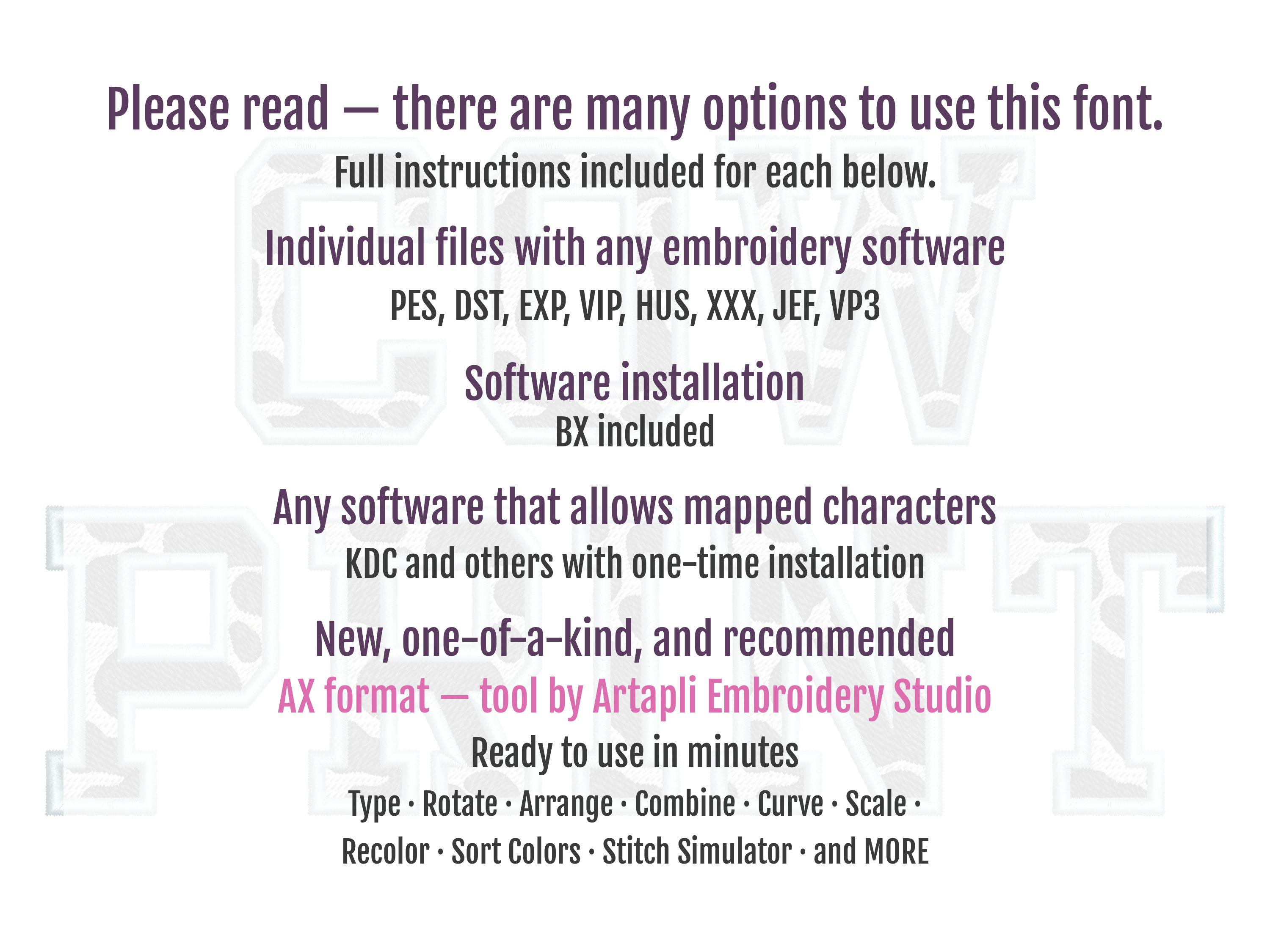
Cow print block Font fill stitch alphabet letters machine embroidery design uppercase and numbers BX include Cow spots monogram name font
Uppercase letters A-Z, and numbers 0-9.
Fill stitch font has a nice satin stitch outline.